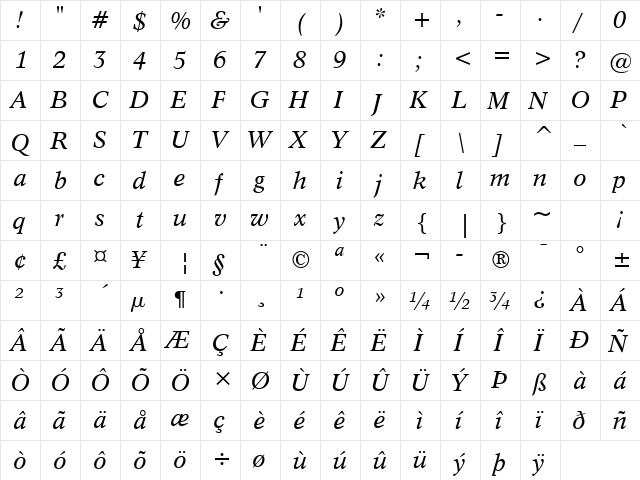
Dutch809 BT Italic
Design Context for Dutch809 BT Typeface
Dutch809 BT takes a measured approach to typography — its balanced proportions and neutral character make it a reliable workhorse for both digital and print work. Its italic angle brings a sense of urgency and motion to the letterforms.
Pro Tip: Use Dutch809 BT for emphasis, pull quotes, and subheadings where its slanted energy can add rhythm to the layout.